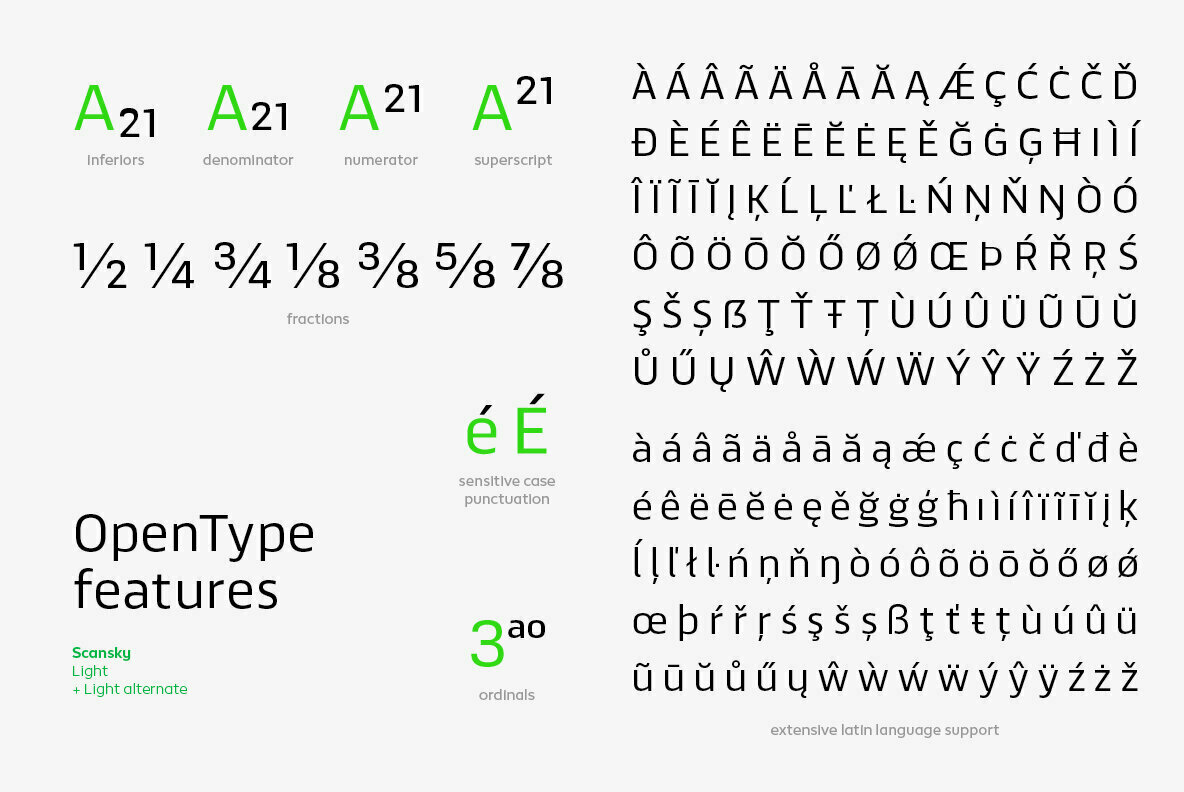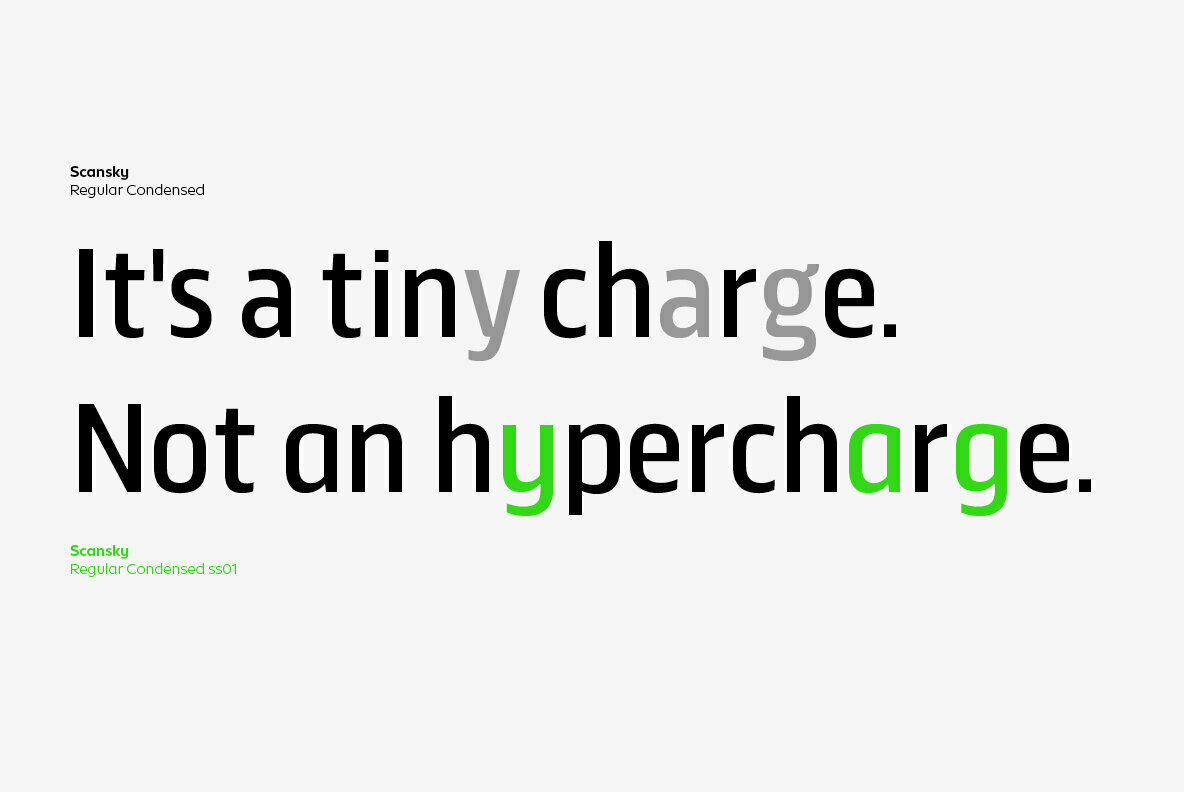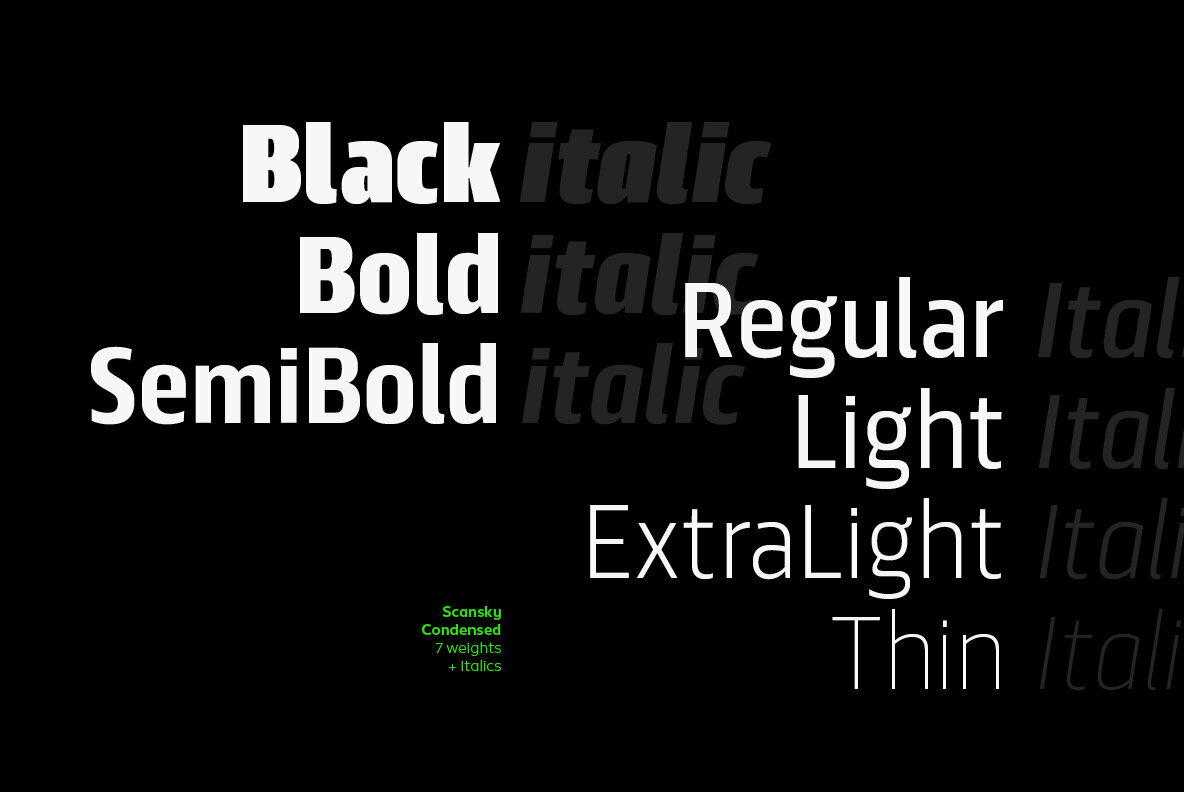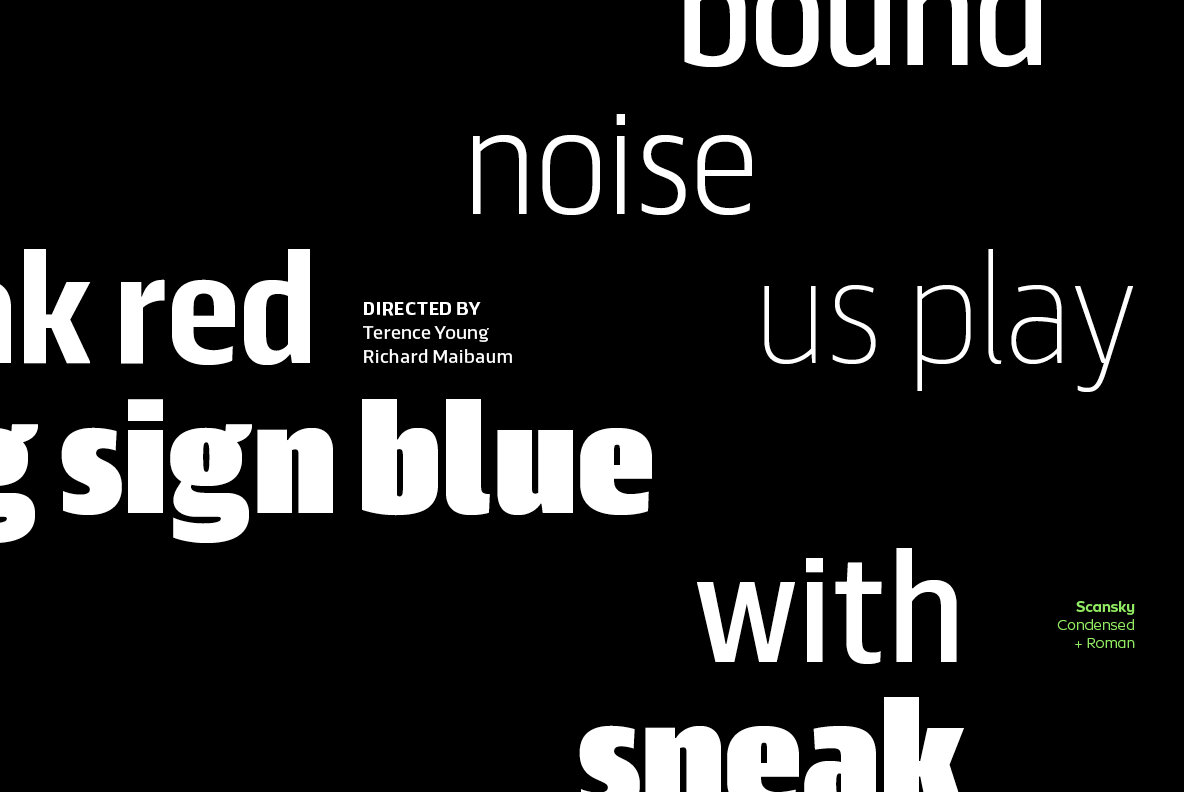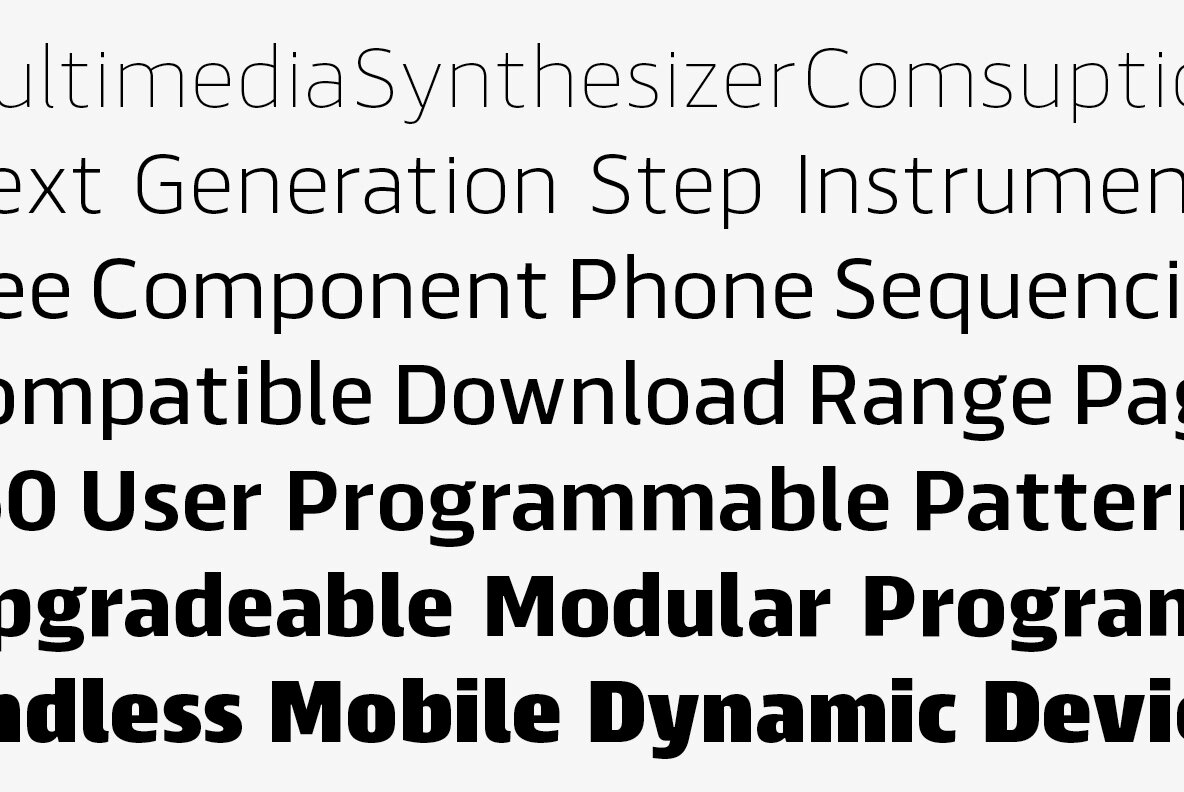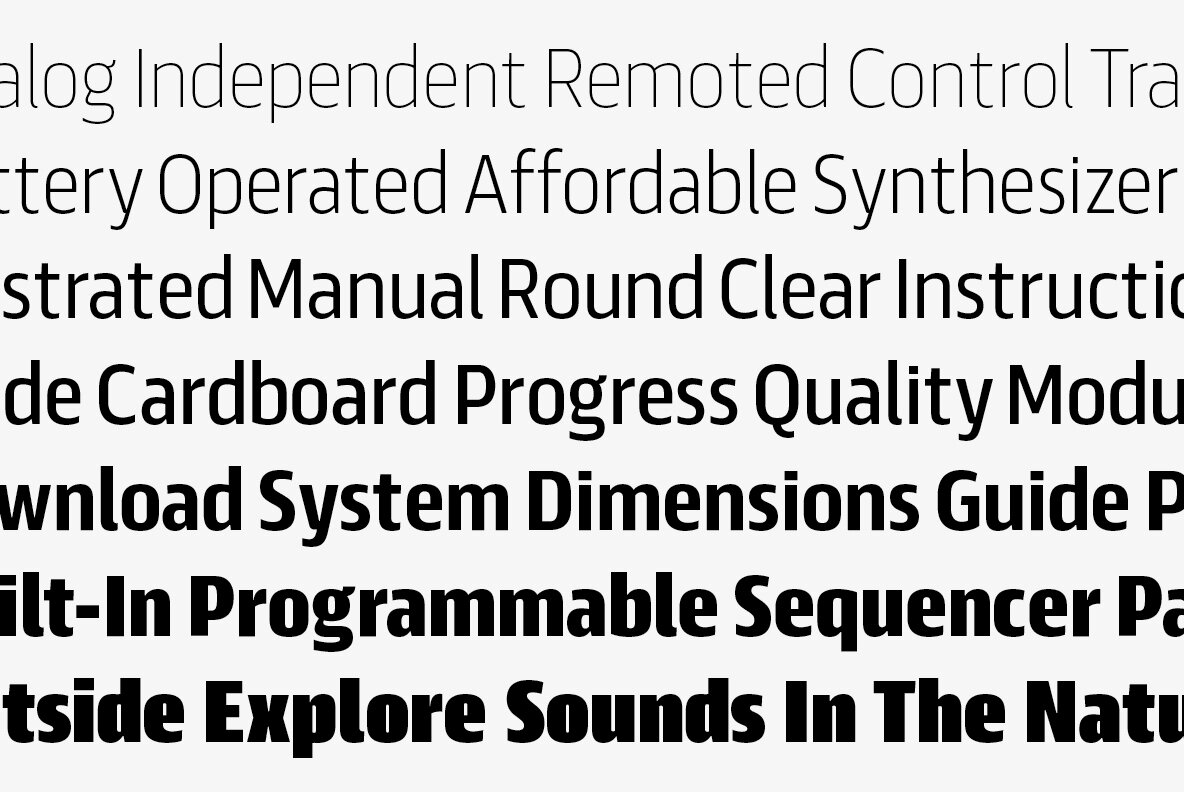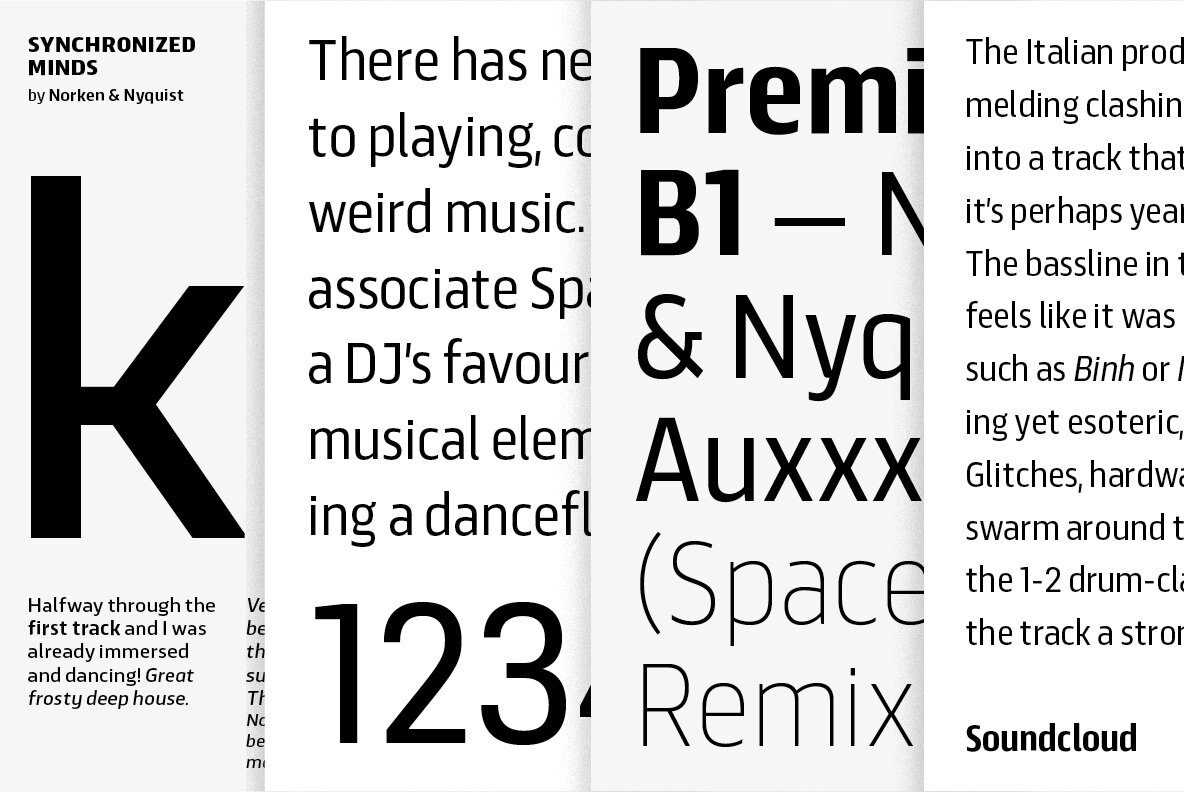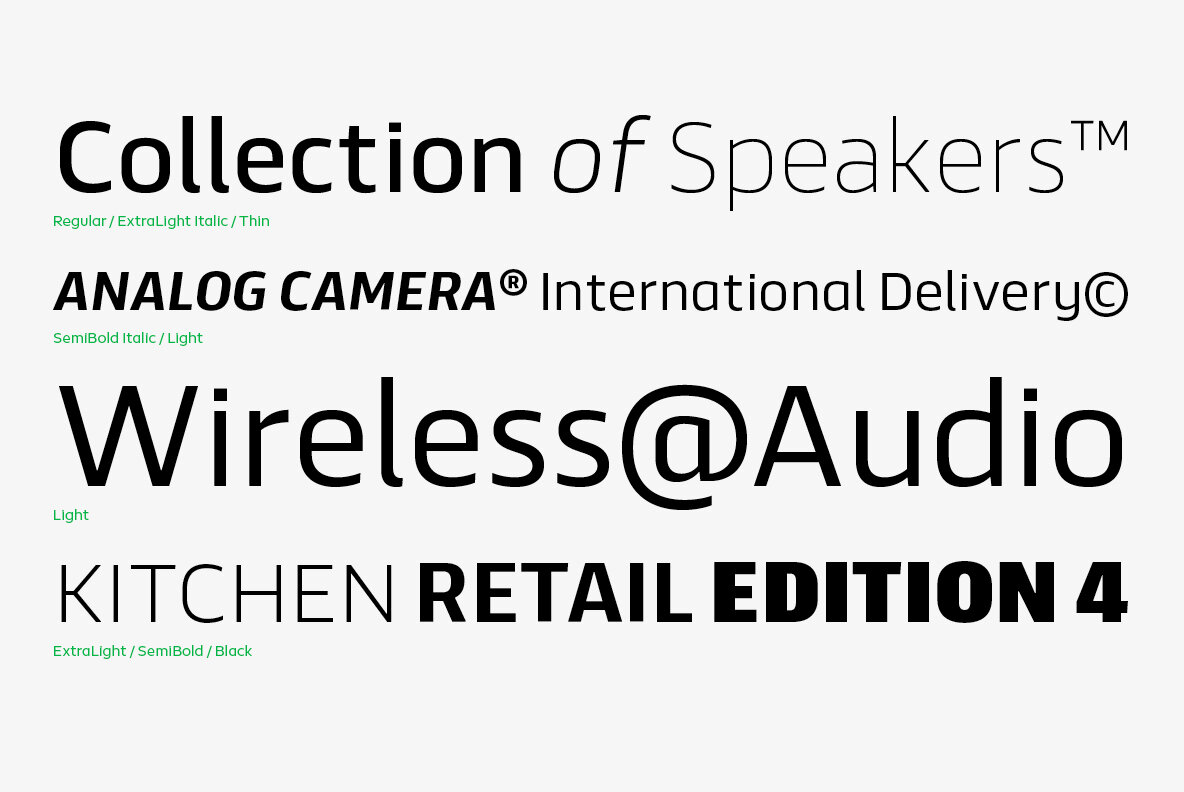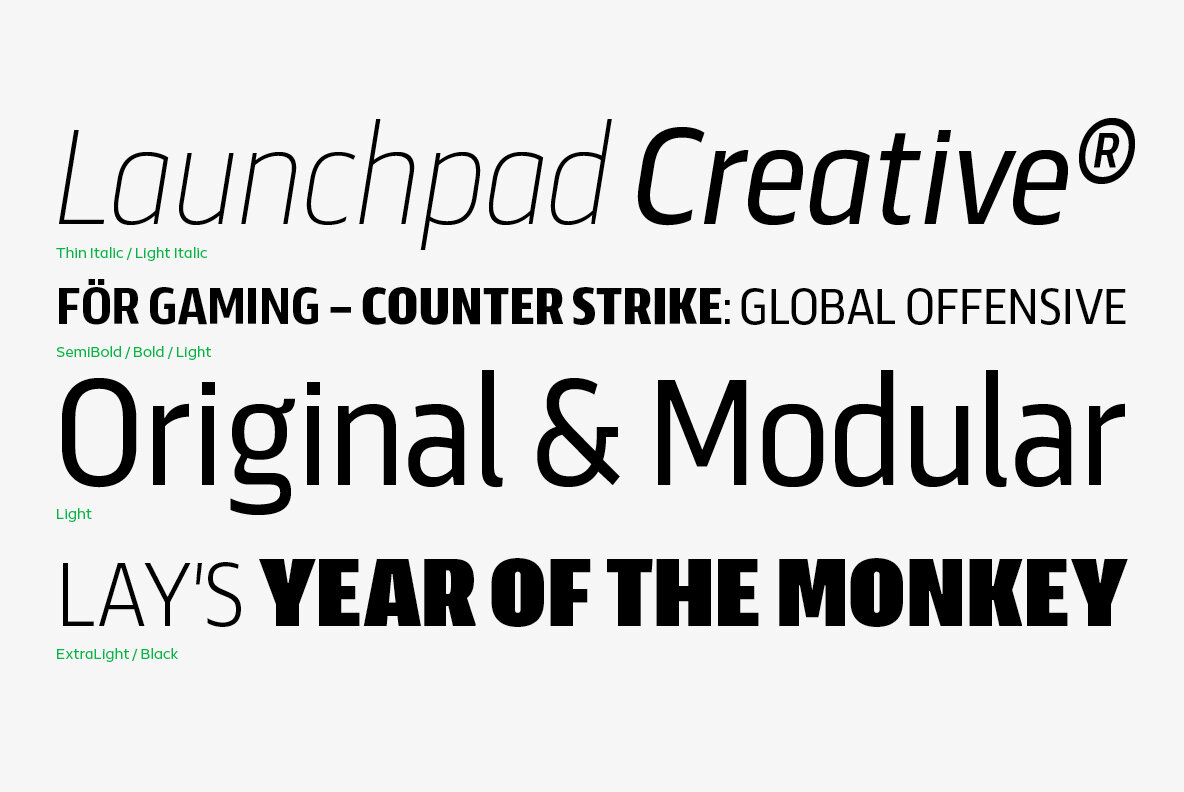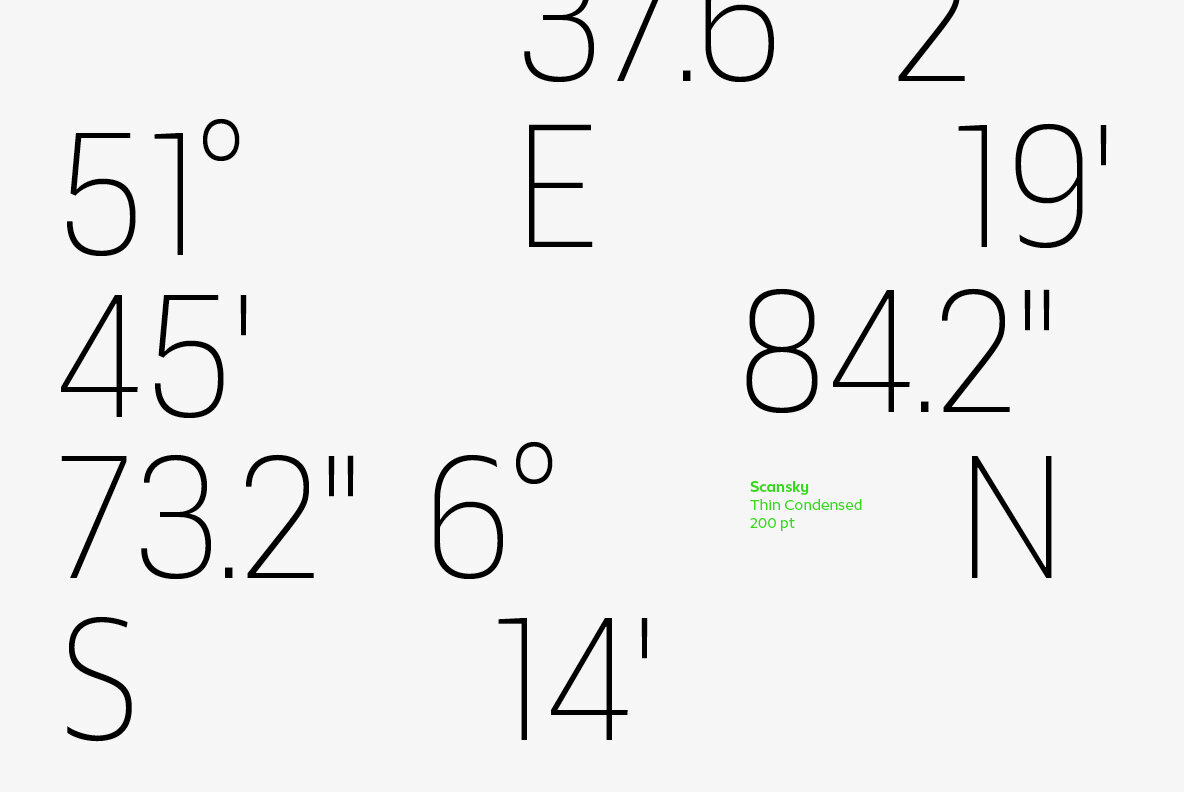
Scansky Font
Scansky is a carefully crafted contemporary modern sans serif typeface. It comes with 28 fonts, regular and condensed sub-families, and matching italics.
Scansky was designed to give a distinct, corporative look to your artwork, suited for signage, web, and corporate print material. It is equipped with an extended character set to support Central, Eastern and Western European languages.